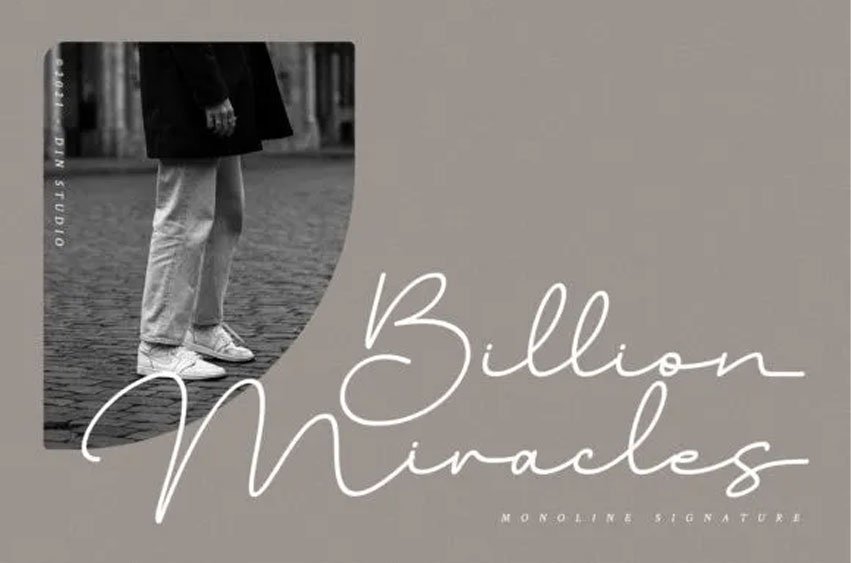
Billion Miracles Font is a delicate, elegant and flowing handwritten font. It has beautiful and well balanced characters and as a result, it matches a wide pool of designs.